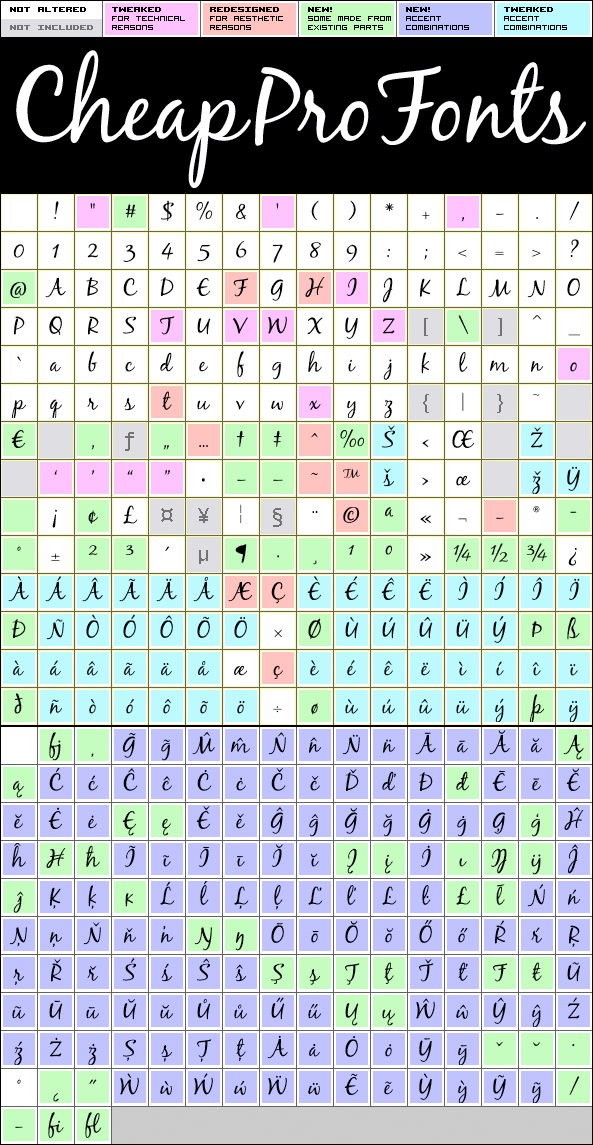
Black Jack Pro
Black Jack Pro by Ronna Penner
Designer:
Ronna Penner
Highlights:
371 glyphs!
(177 in original)
182 class kernpairs
= 3470 kerning pairs
(1 in original)
Description:
The talented Ronna Penner have created many beautiful script fonts, and Black Jacks quality was very good so only a few spacing issues had to be adressed. I've added some kerning pairs, and then added all the glyphs needed for the CheapProFonts language coverage. This font was an absolute joy to rework, and with its extended character set I hope it now finds many more users! :)
Black Jack Pro is a professionally reworked font that contains an extended character set for setting text in 65 languages requiring more than the basic A-Z!